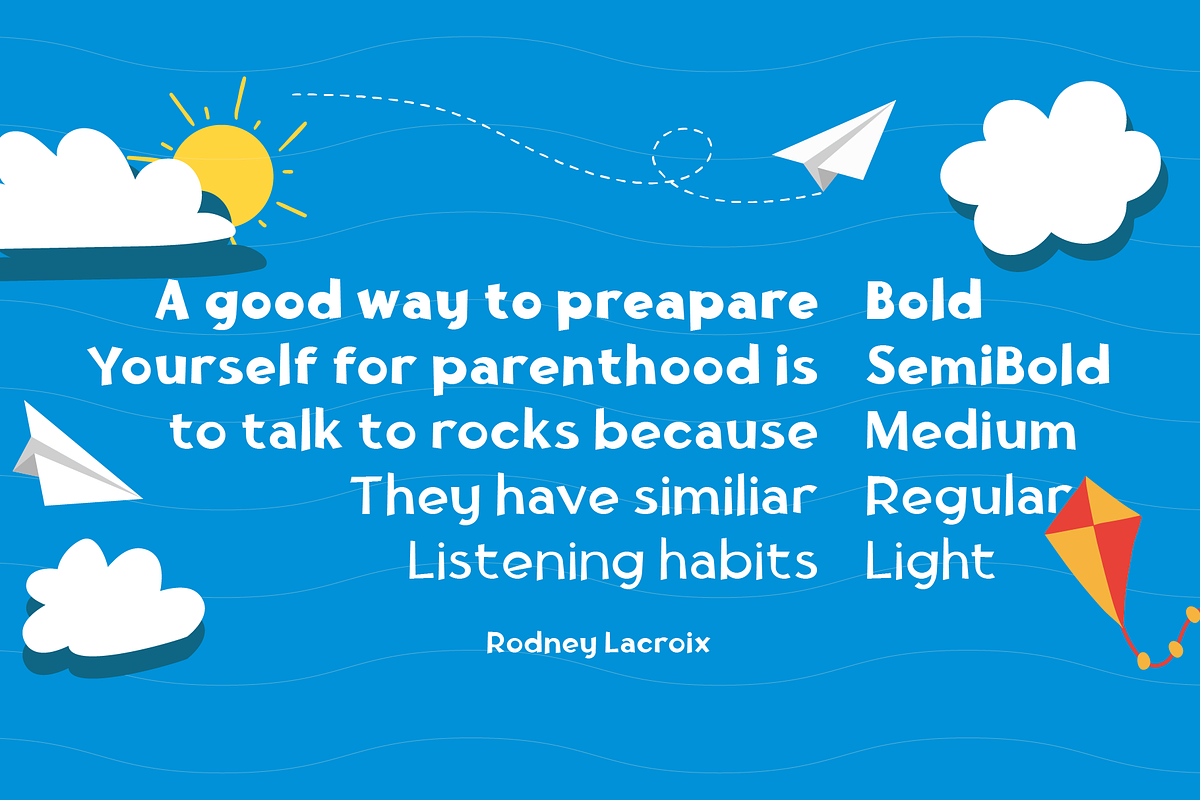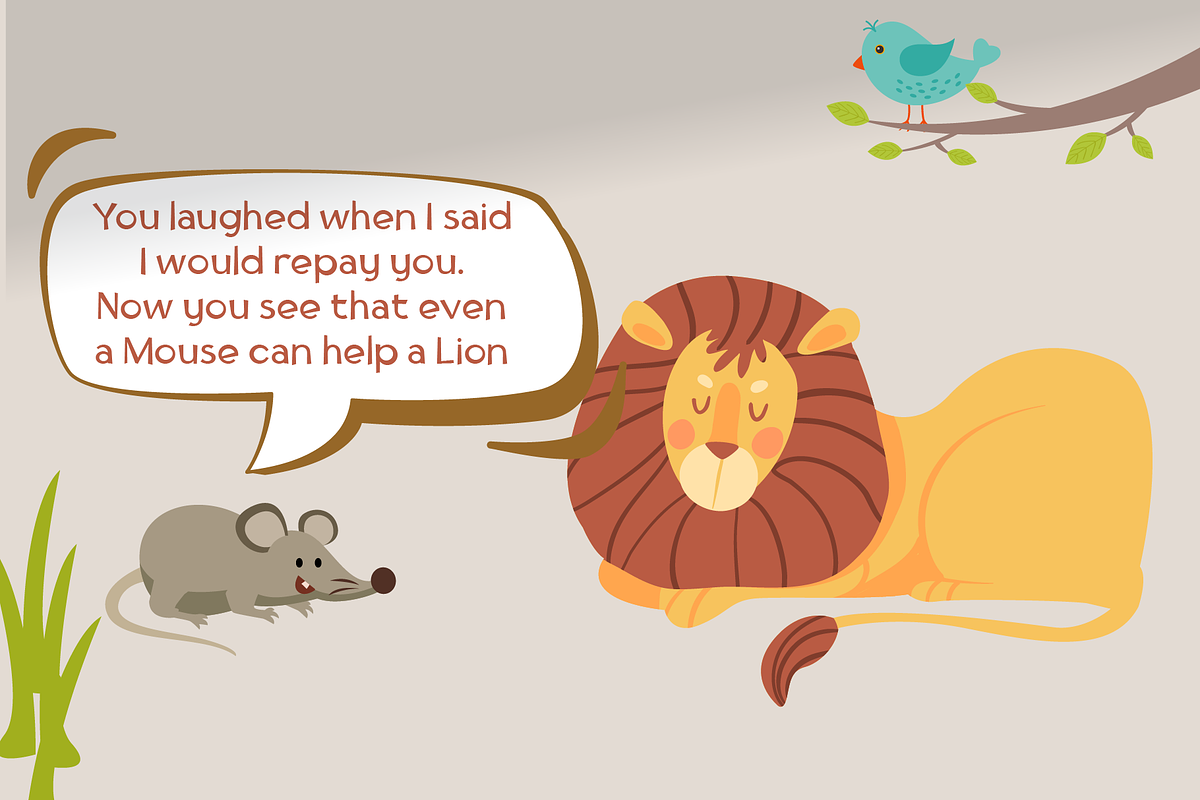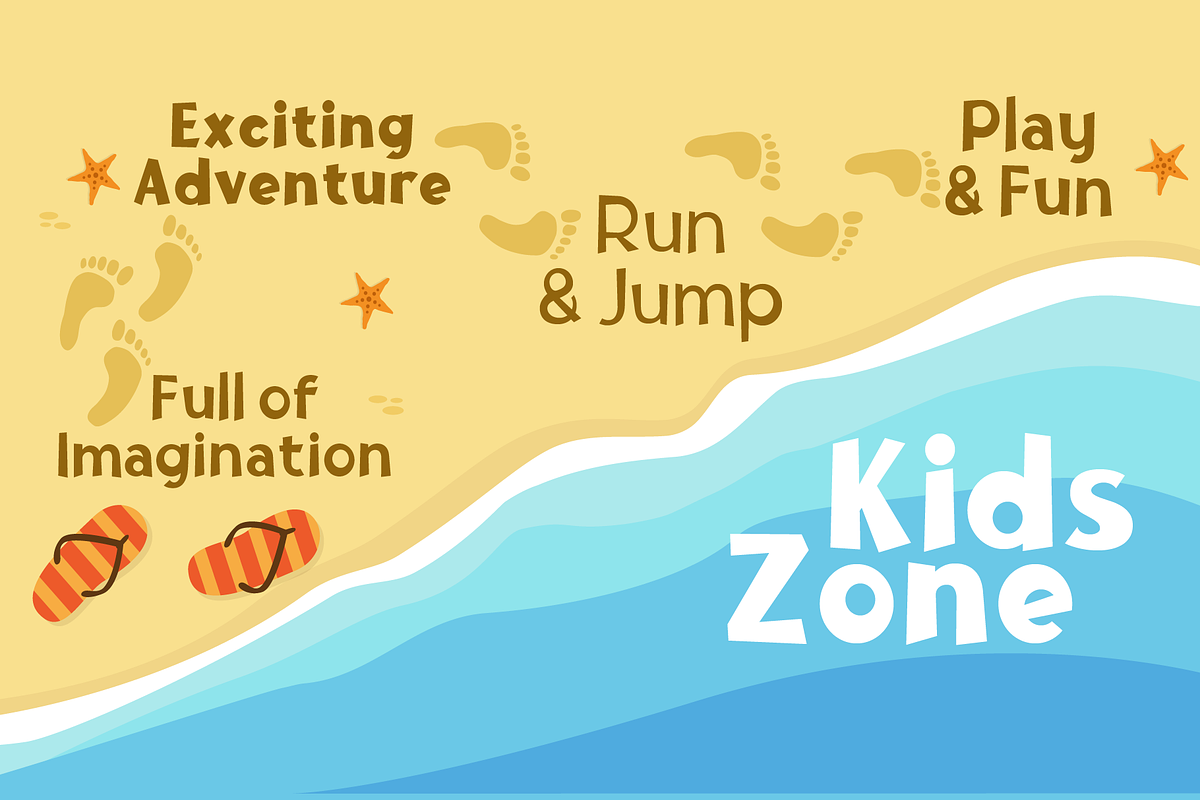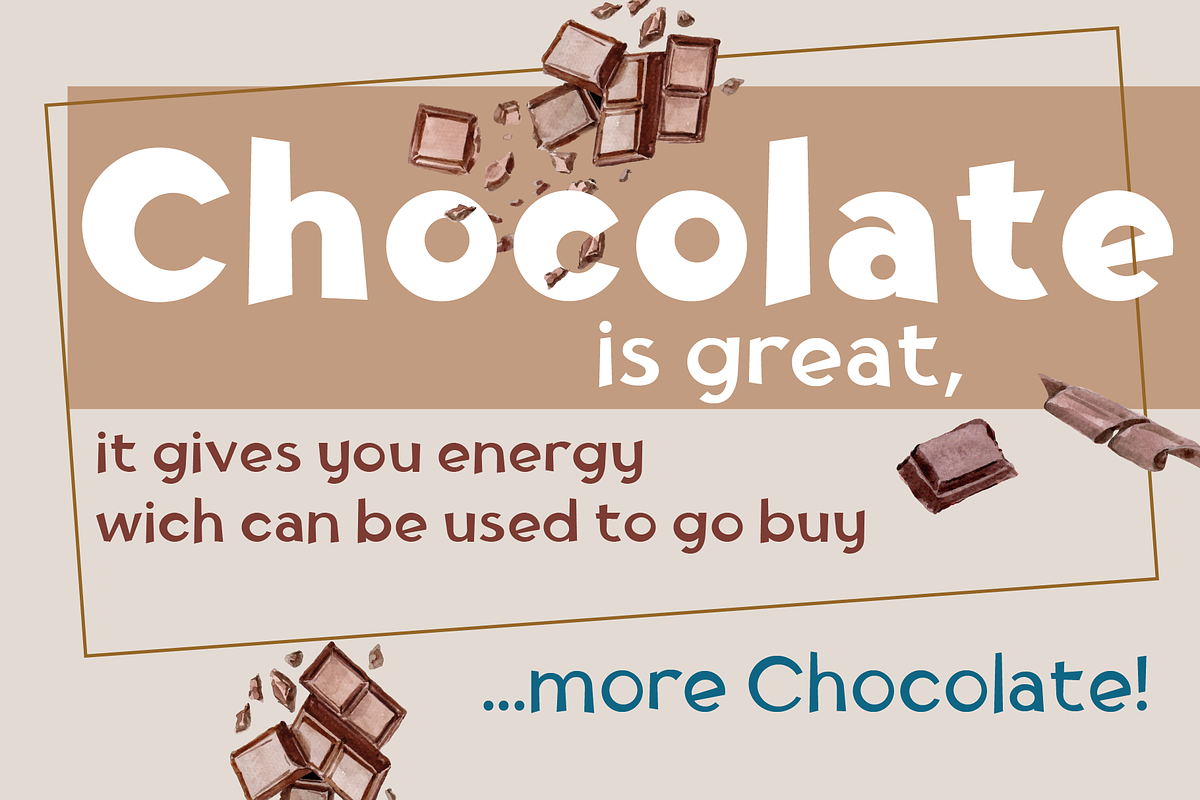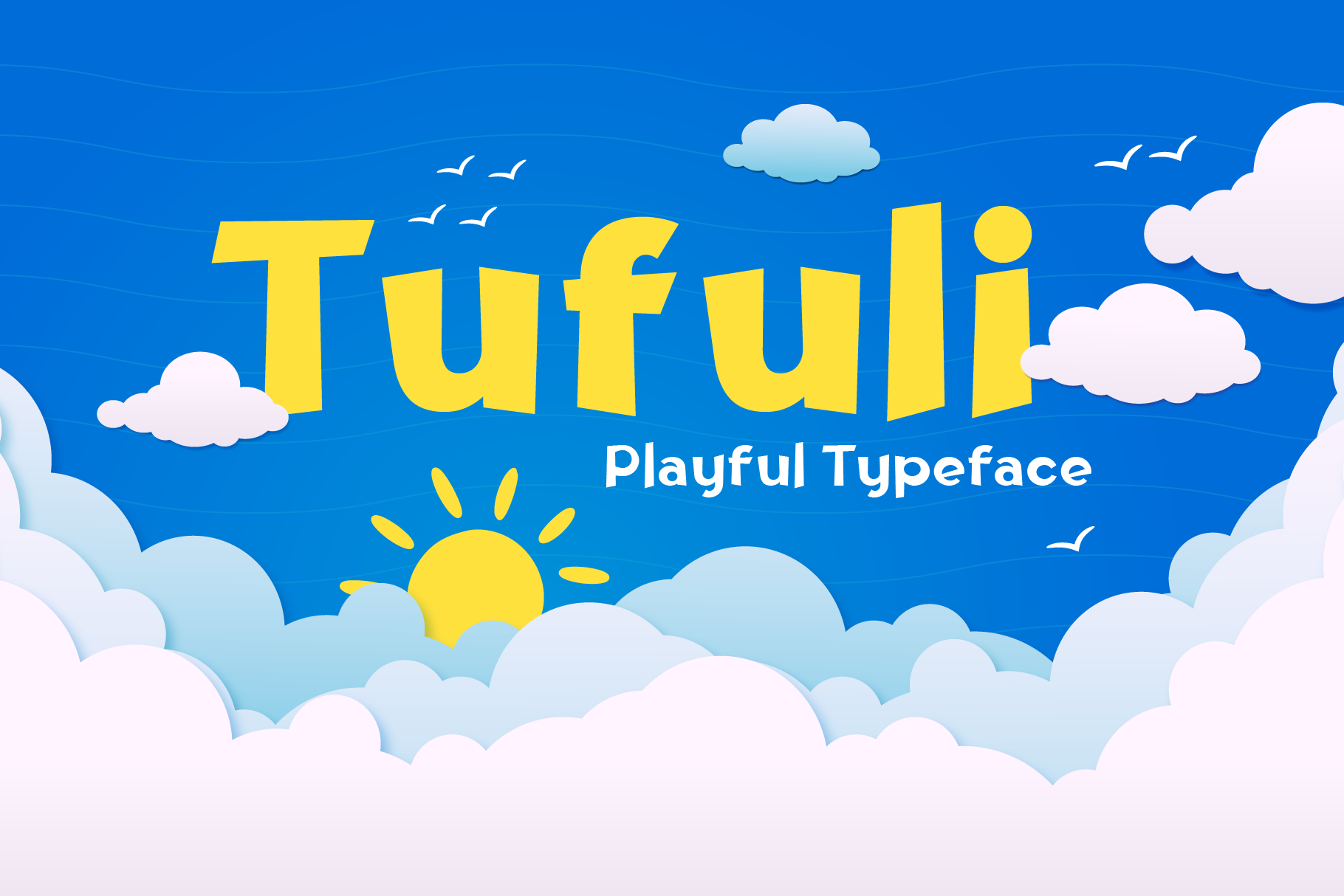
Tufuli - Cute Font Family
Tufuli means "childish" in Arabic. In this font design I wanted to represent the characters as funny and flexible, just like childish characters can be. Tufuli has sloping terminal geometric shapes, giving it a playful feeling.